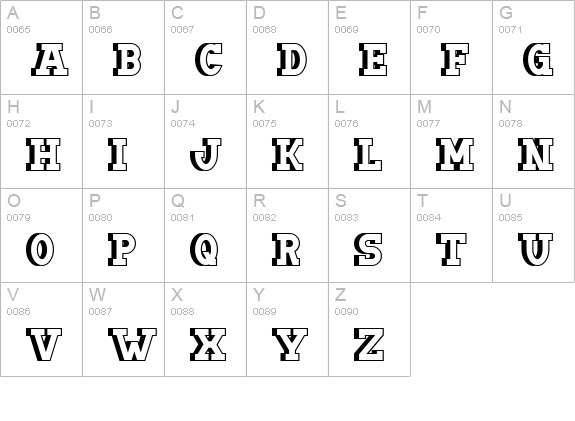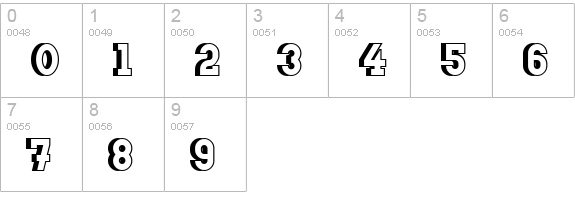
Doergon Shift is a captivating and versatile font that will add a touch of modernity and elegance to any design project. With its unique and stylish letterforms, this font is sure to make a lasting impression. The sleek and contemporary design of Doergon Shift makes it perfect for a wide range of applications, whether it's for branding, advertising, or any creative endeavor. Its clean lines and bold strokes give it a distinctive look that will make your text stand out. One of the best features of Doergon Shift is that it is free! Yes, you read that right. This incredible font is freely available to download at FontsMarket.com. So, you can enjoy the beauty and versatility of this font without spending a penny. Whether you're a professional designer or a hobbyist, Doergon Shift is a must-have font in your collection. Its wide range of glyphs and characters allows you to create unique and eye-catching designs with ease. From logos and headlines to posters and invitations, this font will bring your creations to life. Don't miss out on the opportunity to enhance your designs with the elegance and sophistication of Doergon Shift. Download it for free today at FontsMarket.com and unlock a world of creative possibilities.